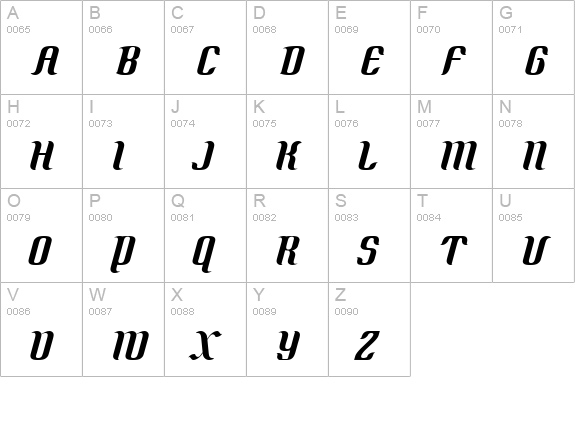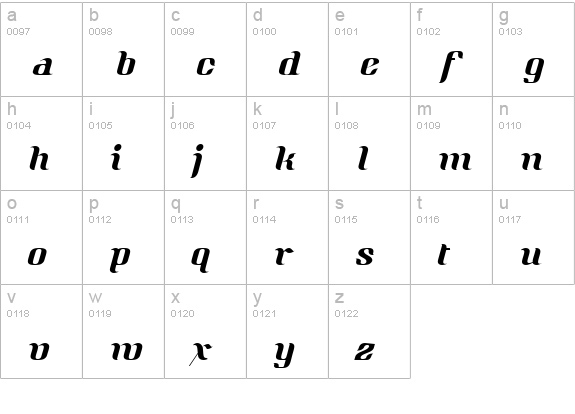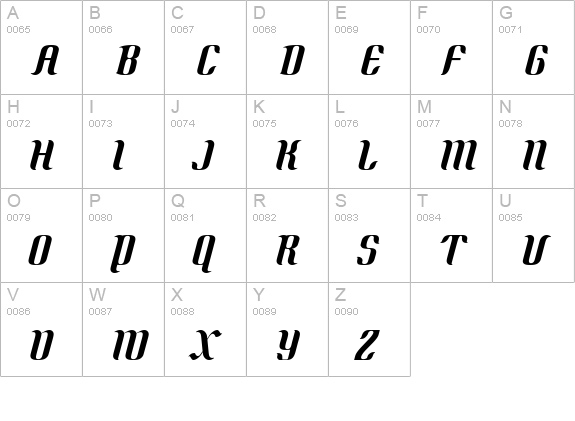
Quidic Italic Font Details
Quidic Italic is a distinctive, italic variant in the Quidic typeface family \xE2\x80\x94 well suited to design and typography projects.
Quidic Italic font is a stunningly elegant typeface that effortlessly combines classic beauty with a modern twist. Its graceful curves and delicate strokes bring a sense of sophistication to any design project, making it the perfect choice for those seeking a touch of refined elegance. This font's unique italic style adds a dynamic and stylish flair to any text, capturing attention and leaving a lasting impression. Its perfectly balanced proportions and meticulous attention to detail make it a true work of art, ensuring that your message is conveyed with clarity and grace. Quidic Italic font is not only visually captivating, but it also offers a seamless reading experience. Its legibility remains uncompromised even at smaller sizes, making it suitable for a wide range of applications, from print materials to digital platforms. One of the most exciting aspects of Quidic Italic font is that it is freely available to download at FontsMarket.com. This means that you can add this extraordinary typeface to your collection without any monetary constraints. Its availability ensures that designers, creatives, and enthusiasts alike can access and utilize this font's beauty and versatility without any limitations. Whether you are working on a branding project, editorial design, or simply looking to add a touch of elegance to your personal creations, Quidic Italic font is a must-have. Its timeless appeal and versatility will elevate your designs to new heights, and its availability as a free download at FontsMarket.com makes it even more irresistible. Embrace the beauty and sophistication of Quidic Italic font and let your creativity soar.